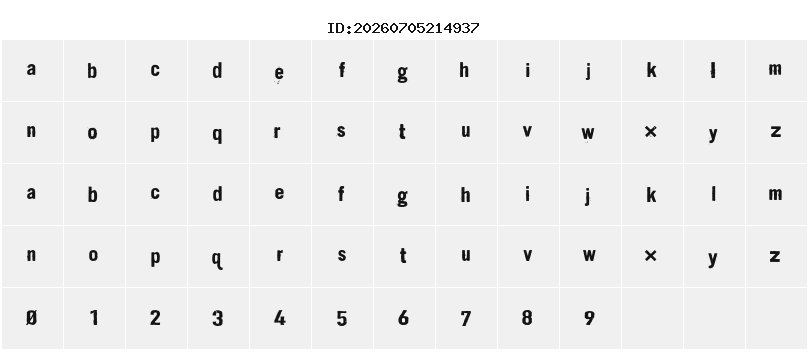
Dirt2 Stickler Preview
• Font Name: Dirt2 Stickler
• Description: Dirt2 Stickler, Created from text on trash wrappers.
Dirt2 Stickler.otf is a modern, elegant sans-serif font designed for ultimate readability and visual harmony. Perfect for branding, headlines, web design, and print materials.